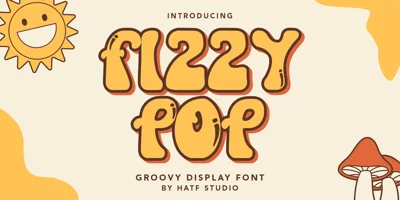
Fizzy Pop Font
Fizzy Pop Font is perfect for vibrant design projects including children's brand packaging, candy store signage, fun beverage labels, playful party invitations, kids' entertainment materials, colorful toy packaging, festive event graphics, cheerful restaurant menus, youth-oriented campaigns, and energetic retail displays that require bubbly typography with joyful personality and infectious enthusiasm.
What makes Fizzy Pop Font so exciting is its effervescent energy and playful character that instantly creates feelings of happiness and excitement while maintaining excellent readability for young and adult audiences alike. This delightful typeface features bouncy letterforms, cheerful proportions, and whimsical design elements that convey fun and celebration, making it perfect for brands seeking to create positive emotional connections and memorable experiences through vibrant visual communication.
Fizzy Pop Font typically includes dynamic font families with regular, bold, light, and outline versions, along with decorative alternates, playful symbols, and special characters for celebrations, providing designers with extensive options to create joyful layouts and establish energetic brand presence across various fun-focused applications.
This exuberant Fizzy Pop Font offers creative professionals an exceptional tool for projects requiring upbeat energy and celebratory appeal. Whether you're developing children's product branding, party planning materials, or fun food service designs, this font delivers infectious positivity while ensuring clear communication and broad appeal. The playful design characteristics and versatile styling options make it particularly valuable for entertainment brands, children's products, and celebration-focused businesses seeking to communicate joy, excitement, and positive energy through typography that creates smiles and memorable brand experiences in competitive family and entertainment markets.